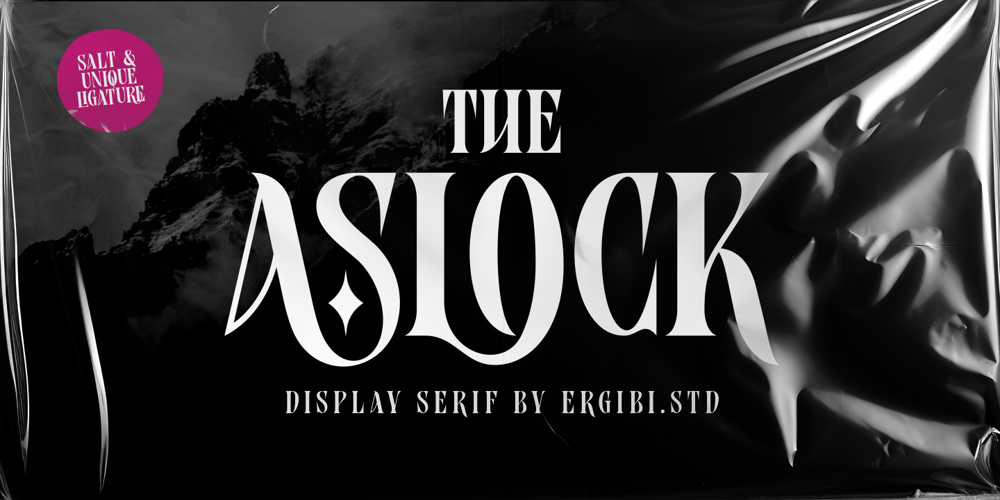
Aslock
Aslock font
Aslock Font Family was designed by Riyadh Rahman and published by Ergibi Studio. Aslock contains 1 styles and family package options. Aslock is a display serif font that embraces classic modern vibes and look elegant. Its delicate curves and refined details create a sense of sophistication Aslock brings a touch of charm and sophistication to branding, With its versatility and contemporary appealUppercase I hope you enjoy this font. If you have any questions please don’t hesitate to drop me a message :)Big Thanks ~ Ergibi Studio